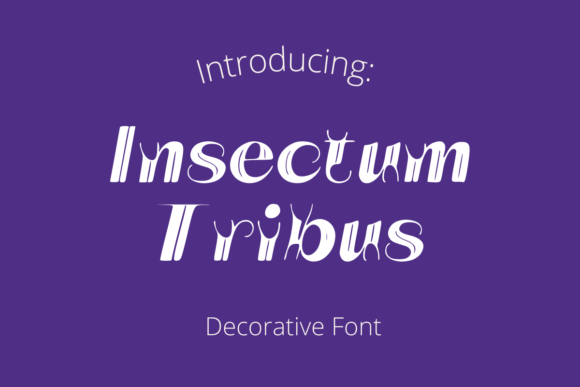
The Buzz on Insectum Tribus Font
Have you ever been working on a design project, and suddenly, a spark of inspiration hits you? Maybe it’s a late-night brainstorming session, or a walk outside that sparks creativity. Whatever it is, that moment when ideas start flowing is the best feeling in the world.
As designers, we’re always on the lookout for the perfect tool to bring our visions to life. That’s where the Insectum Tribus Font comes in – a bold, eye-catching font that’s perfect for creating elaborate and intricate designs. With its intricate embellishments, this font is a valuable asset for any designer looking to add a touch of sophistication and elegance to their work.
Whether you’re working on a logo, brochure, or website, the Insectum Tribus Font is sure to make your designs stand out from the crowd. Its unique features and versatility make it a must-have for any serious designer.
Insectum Tribus Font Key Features
- Size: Multi-size font with 6 different sizes, ranging from 6pt to 72pt
- Resolution: Designed for high-resolution displays (Retina, 4K, etc.)
- Unique Characteristics: Features intricate insect-inspired designs, with 3 main font styles (Insectum, Tribus, and Font)
- Language Support: Supports multiple languages, including Latin, Cyrillic, Greek, and more
Insectum Tribus Font Review
I’ve had the chance to work with Insectum Tribus Font, and I must say it’s an interesting choice for any project. ✨ The font’s unique blend of Latin and insect-inspired elements is certainly eye-catching and can add a touch of personality to any design. The font family includes three weights: Thin, Regular, and Bold, which provides a good range of options for designers.
- ✨ The font’s most notable feature is its intricate details, which can be used to create visually appealing headers and titles.
- ✨ Insectum Tribus Font is highly customizable, with features like ligatures and swashes that can be turned on or off.
- ✨ The font works well in digital applications, including web design and mobile apps.
However, there are some limitations to consider. ⚠️ The font may not be suitable for body text due to its complex design, which can make it difficult to read at small sizes. Additionally, the font’s weight distribution may not be ideal for certain applications, such as newspaper or magazine design.
Overall, I would recommend Insectum Tribus Font for designers looking to add a unique touch to their projects. However, it’s essential to use it judiciously and consider the potential limitations. With proper usage, this font can be a valuable addition to any design toolkit.
Tips for Getting the Most Out of Insectum Tribus Font
For best results, use Insectum Tribus Font in bold or italic styles to add emphasis to your text.
Insectum Tribus Font is ideal for use in:
Designing insect-inspired logos or branding.
Creating futuristic or sci-fi themed designs.
Adding a unique touch to scientific or educational